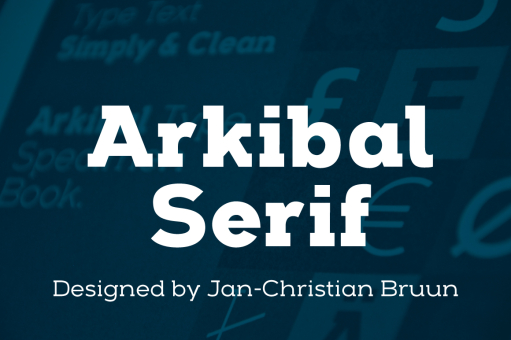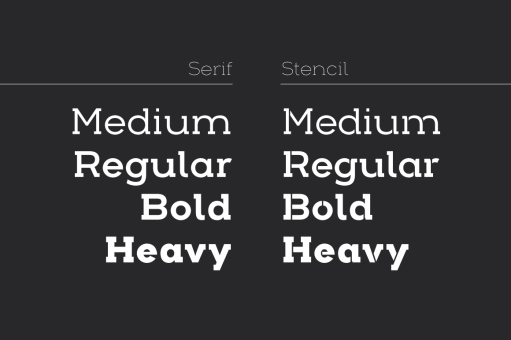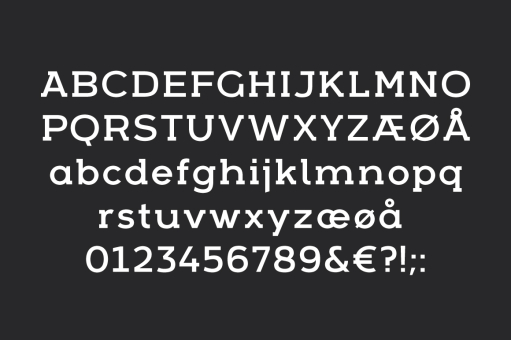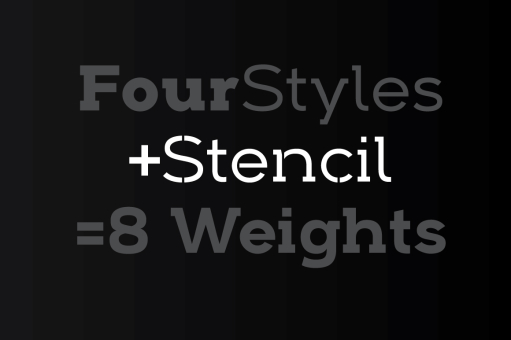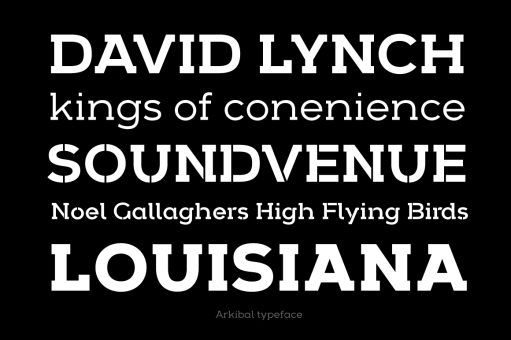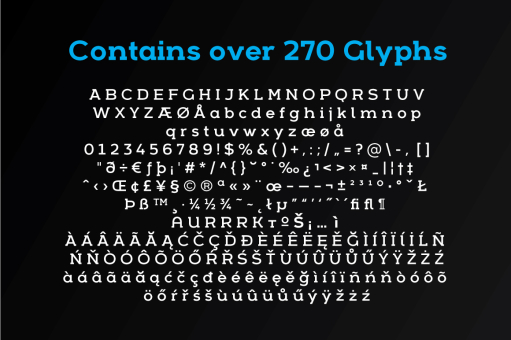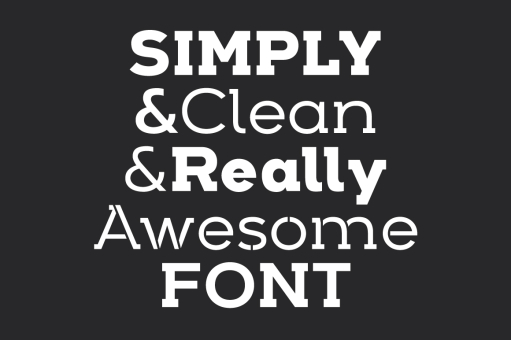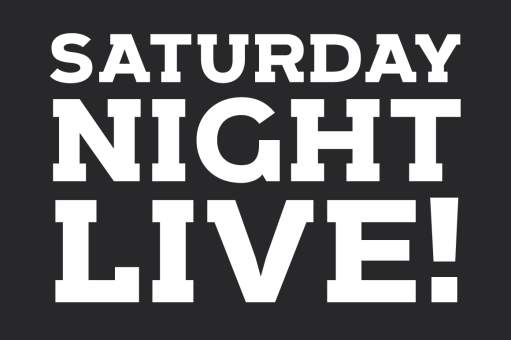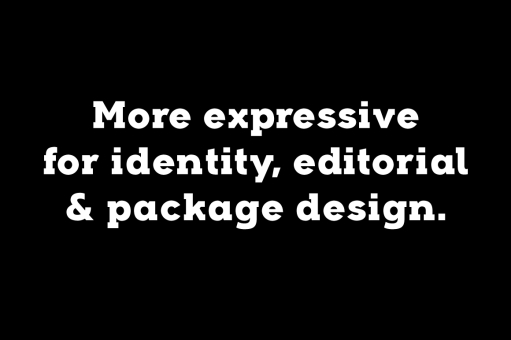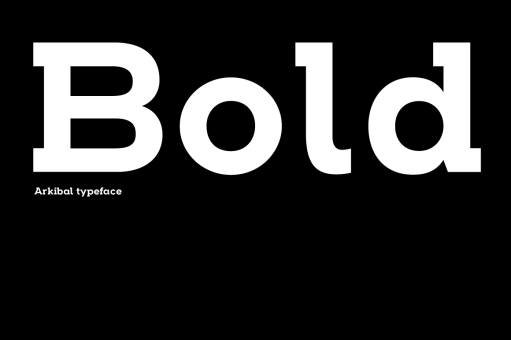
Arkibal Serif
The inspiration comes from some old documents and store signs from my great-grandfather's old gold listfactory from 1838. He delivered hits for many artists of that time, and various museums in Copenhagen. I priority increases to make a mixture of the classic letter with a modern lift. Seems it was fun to try to reproducesome of the old characters and make a new font. Uppercase “G” was the first letter of the startingpoint. G stands for in danish “Guldramme”, which means “Goldframe”. Arkibal is coming from an almost old danish tradional name "Arkibald", only without "d".
Designer: Jan-Christian Bruun
Publisher: Jan-Christian Bruun